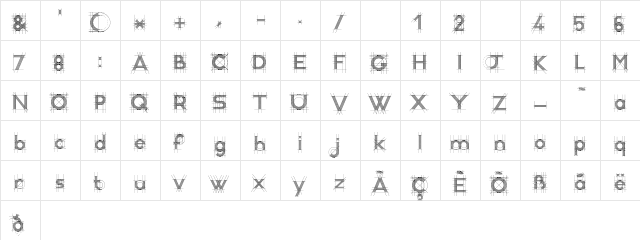
R&C Demo Demo
Design Context for R&C Demo Typeface
R&C Demo takes a measured approach to typography — its balanced proportions and neutral character make it a reliable workhorse for both digital and print work.